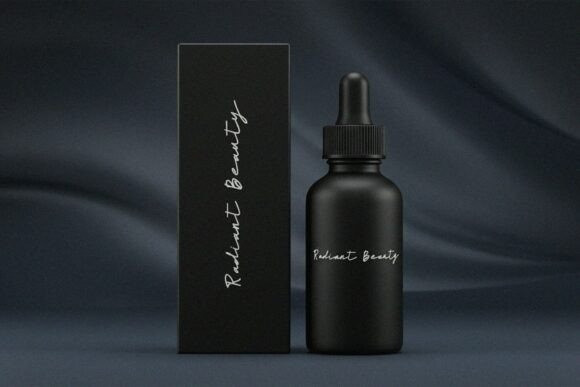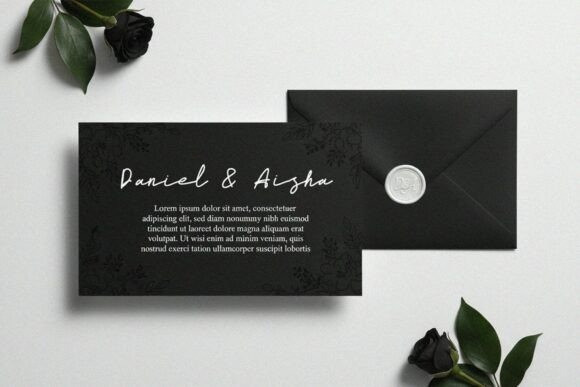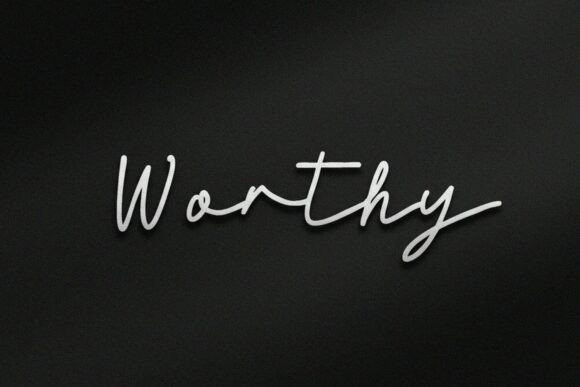
Worthy Handwriting Font
Worthy Handwriting Font is a refined and sophisticated typeface crafted to express elegance, confidence, and personal style.Worthy font is an elegant, thin-stroke handwritten script that embodies minimalist sophistication and effortless style. This Worthy typeface features elongated, airy connections and a natural slant that mimics high-end signature writing. It is a premier selection for luxury photography watermarks, personal branding, and minimalist invitation designs. The Worthy font offers a “less is more” aesthetic that works beautifully against dark, atmospheric backgrounds or clean, white space.
To maximize its impact, pair it with an all-caps sans-serif for a modern, architectural look. Its delicate beauty and refined flow make it an essential asset for designers aiming for a polished, “signature” brand presence.